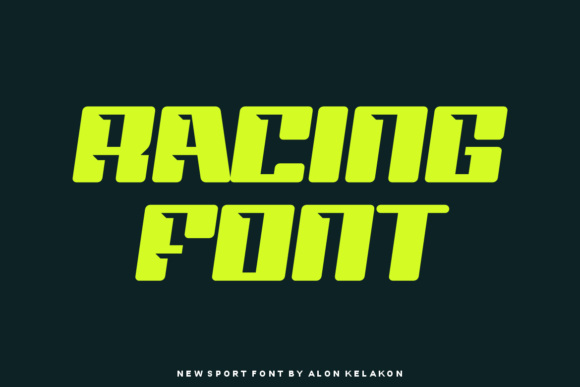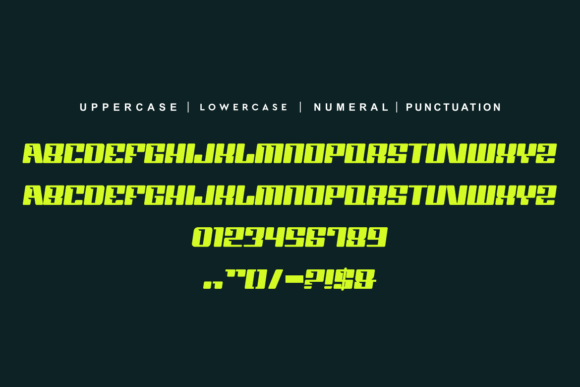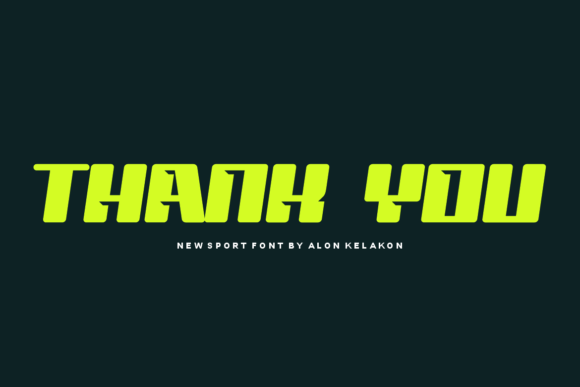
Introduction to Saveride Font
Have you ever been brainstorming ideas for a creative project, scrolling through design inspiration boards, and suddenly a font catches your eye? It’s that ‘aha’ moment when you know you’ve found the perfect fit for your project. For designers, finding the right font can make all the difference in bringing a concept to life. Recently, I stumbled upon the Saveride Font, and I’m excited to share its unique features with you.
As a valuable design resource, Saveride Font offers a refreshing take on display fonts. With its sleek and modern design, it’s perfect for labeling, clothing, movie screens, posters, and much more. Whether you’re working on a gig, album cover, or logo, this font is sure to elevate your design game. Plus, with its transparent background, you can easily customize it to fit your project’s needs.
Key Features of Saveride Font
- High-quality design resource perfect for creative projects
- Unique, modern design ideal for a wide range of applications
Honest Review: Saveride Font
I recently came across the Saveride Font and was excited to give it a try. As a designer, I’m always on the lookout for high-quality design resources to elevate my creative projects. The Saveride Font did not disappoint.
What works well: ✨ The Saveride Font has a unique, modern aesthetic that’s perfect for a variety of design projects. The font is available for free download, which is a major plus in my book. I also appreciated the transparent background, which made it easy to integrate into my designs.
- Unique, modern aesthetic
However, there are a few limitations to keep in mind: ⚠️ The Saveride Font may not be suitable for all design projects, particularly those that require a more traditional or classic look. Additionally, the font may not be compatible with all operating systems or software.
Overall, I was impressed with the Saveride Font and would recommend it to designers looking for a high-quality, modern font for their creative projects.
Tips for Getting the Most Out of Saveride Font
Use the Saveride Font in conjunction with a transparent background to create a striking visual effect. Experiment with different font sizes and styles to add depth and interest to your design. Consider combining the Saveride Font with other design elements, such as images and graphics, to create a cohesive and engaging creative project.
Common Use Cases for Saveride Font
The Saveride Font is suitable for a wide range of creative projects, including graphic design, digital art, and typography. It can be used to create eye-catching headings, titles, and body text for websites, social media, and marketing materials. The font’s high-quality design makes it an excellent choice for professional and personal projects alike.